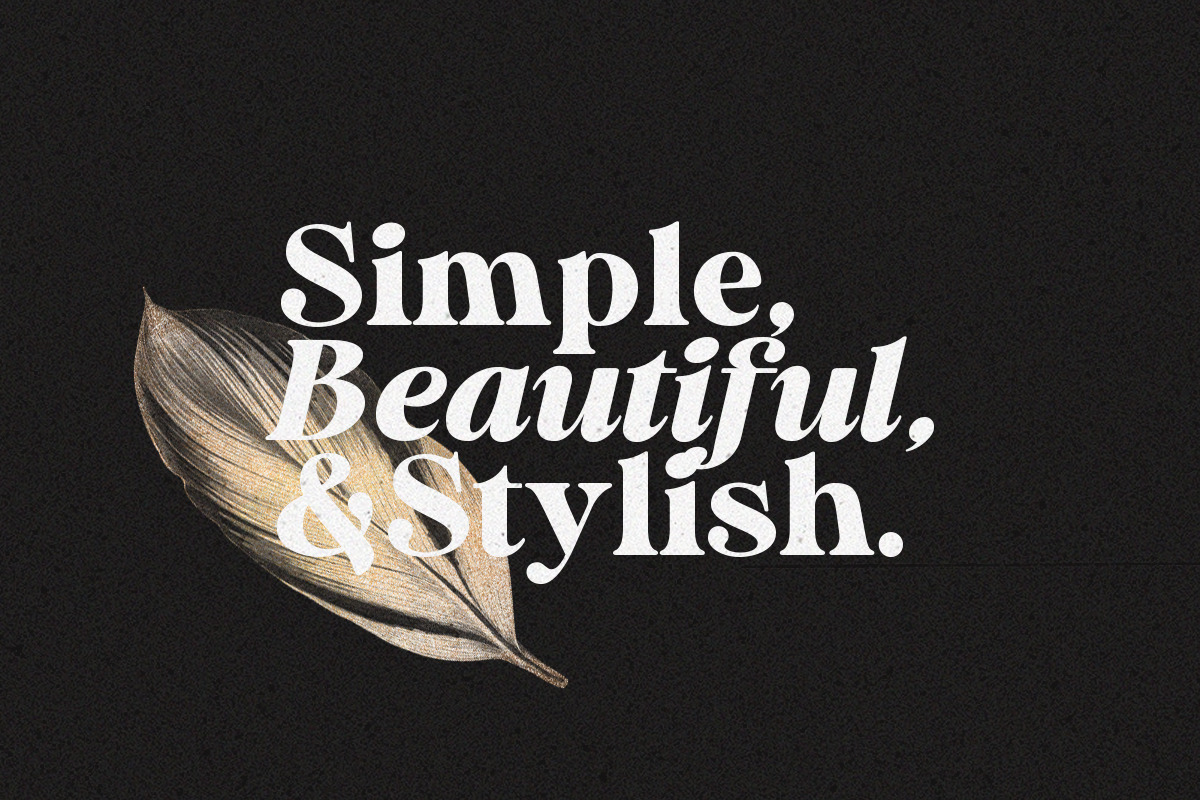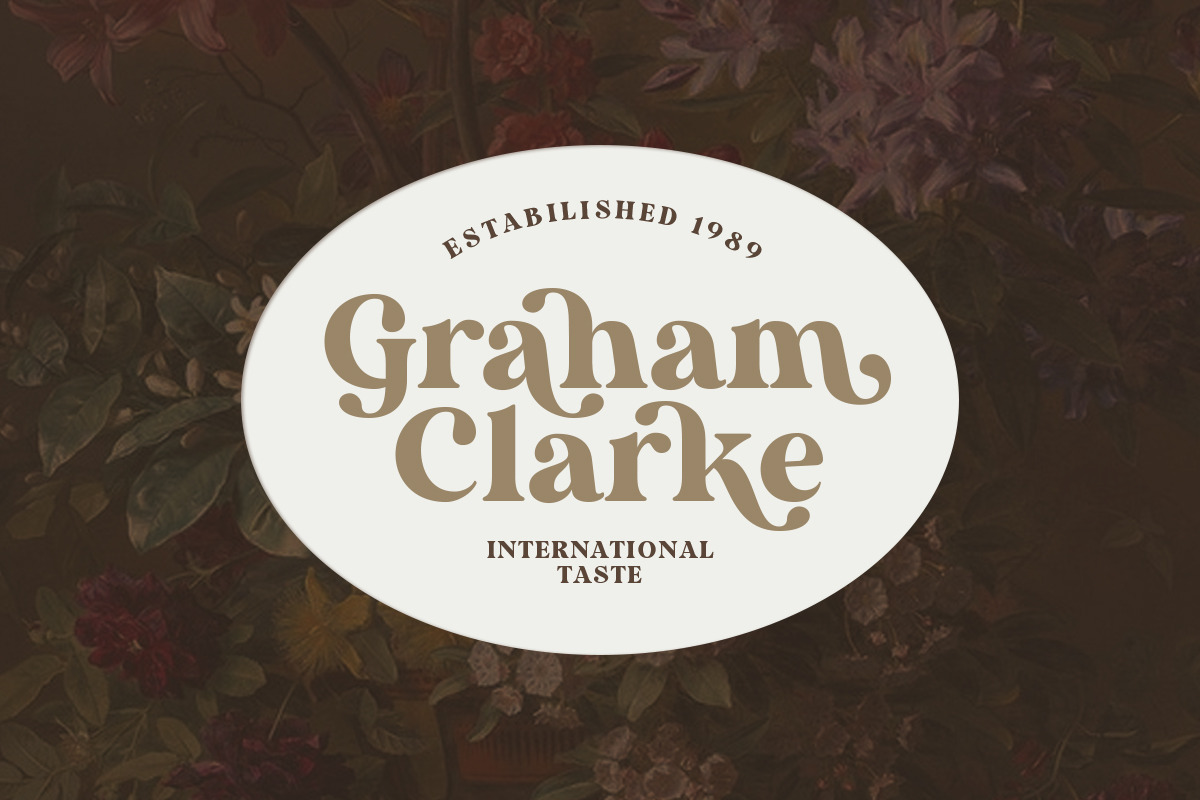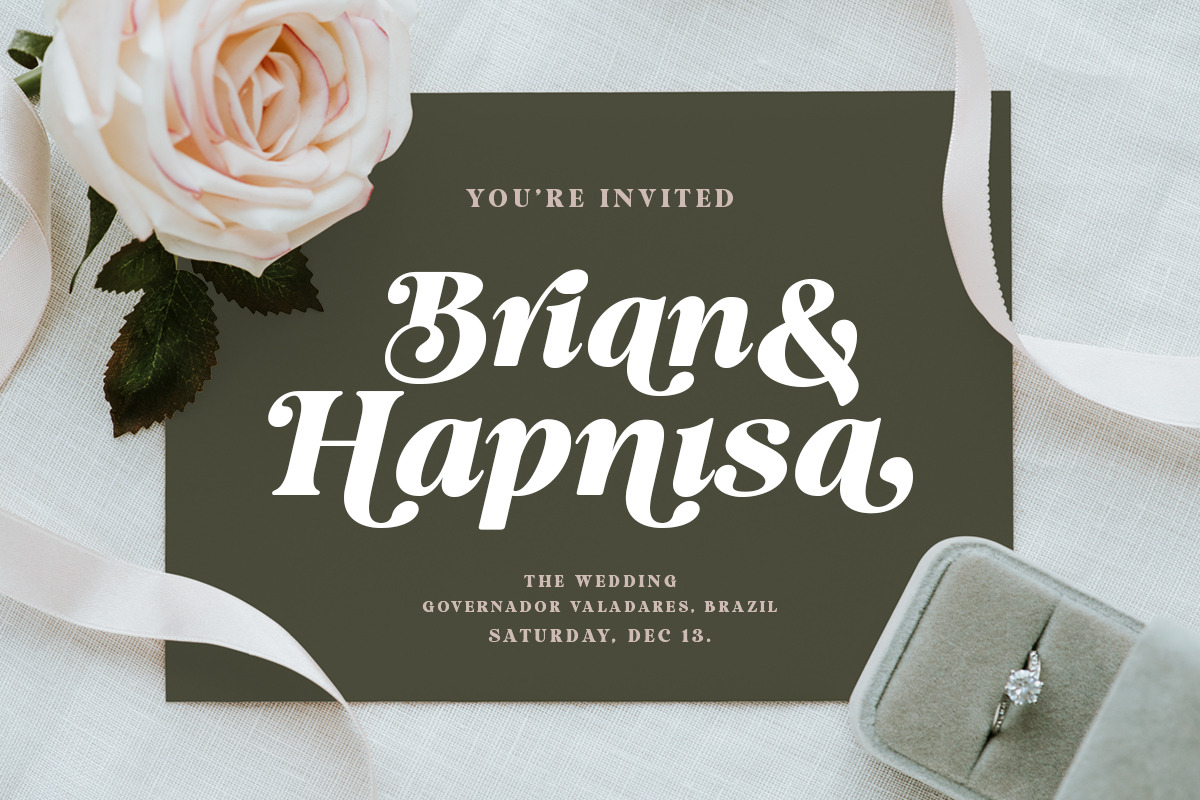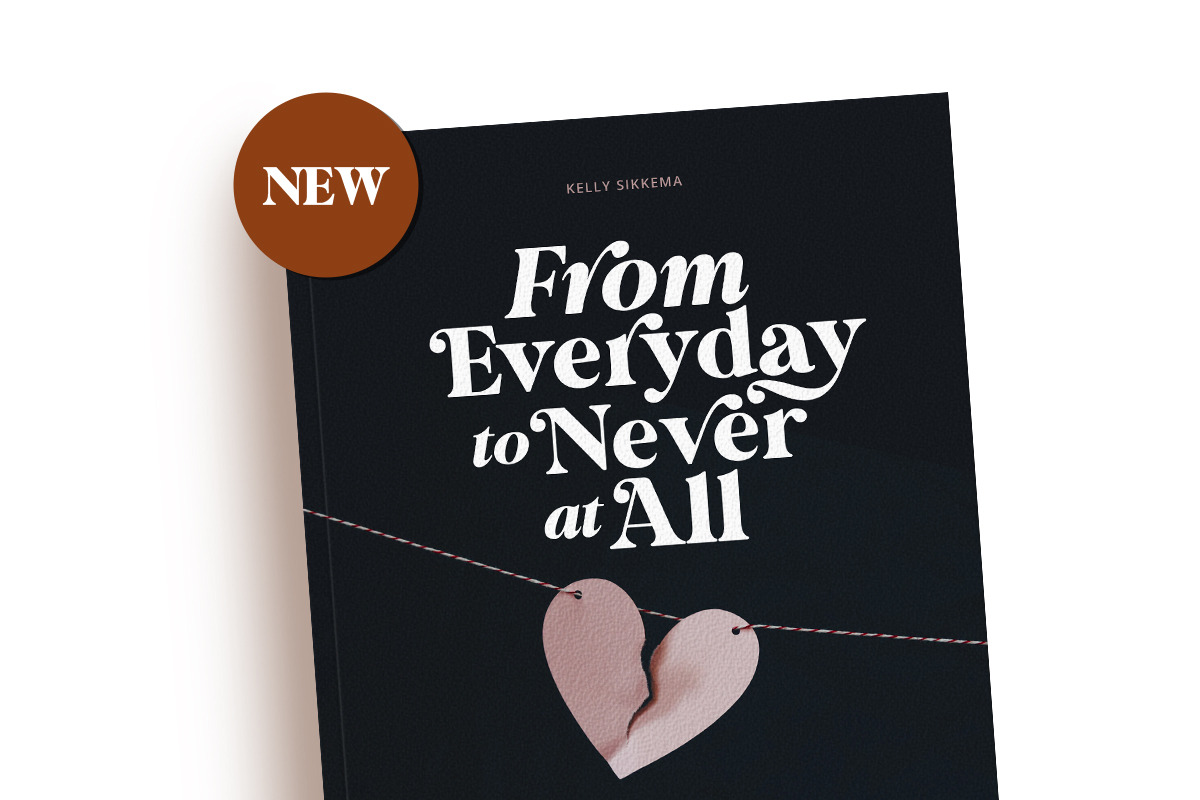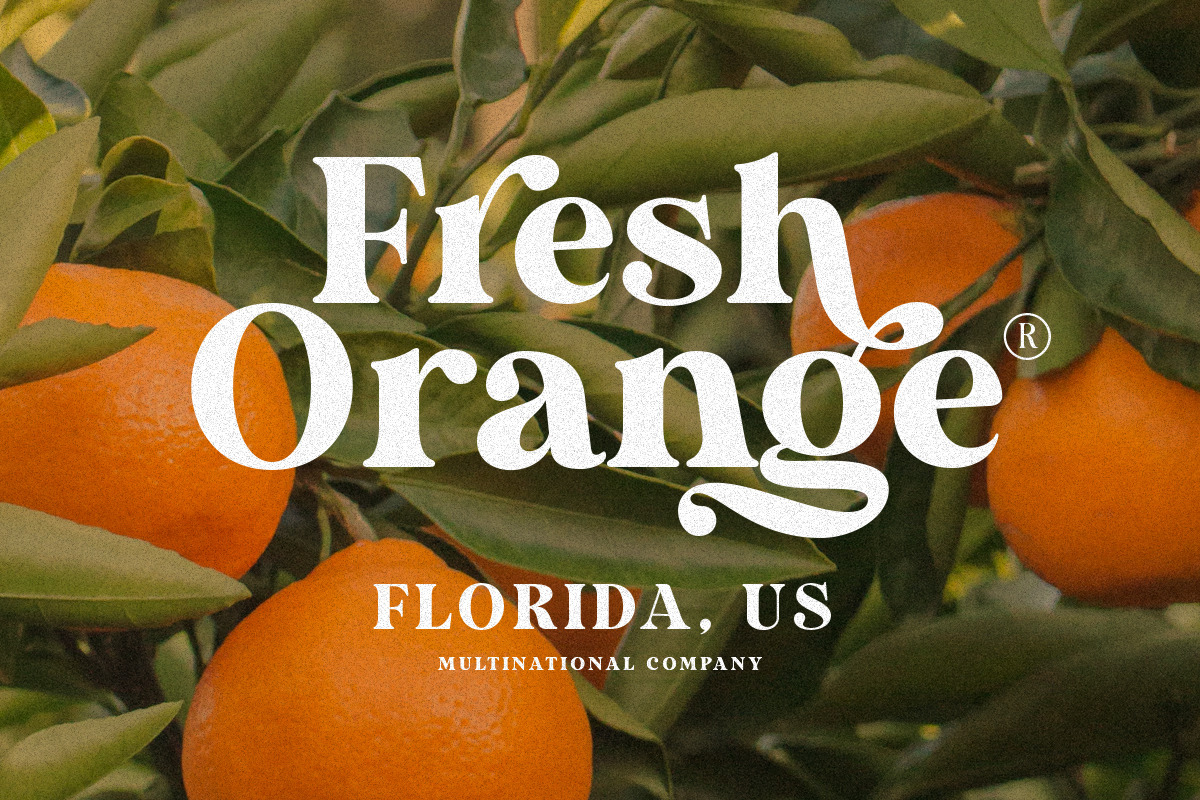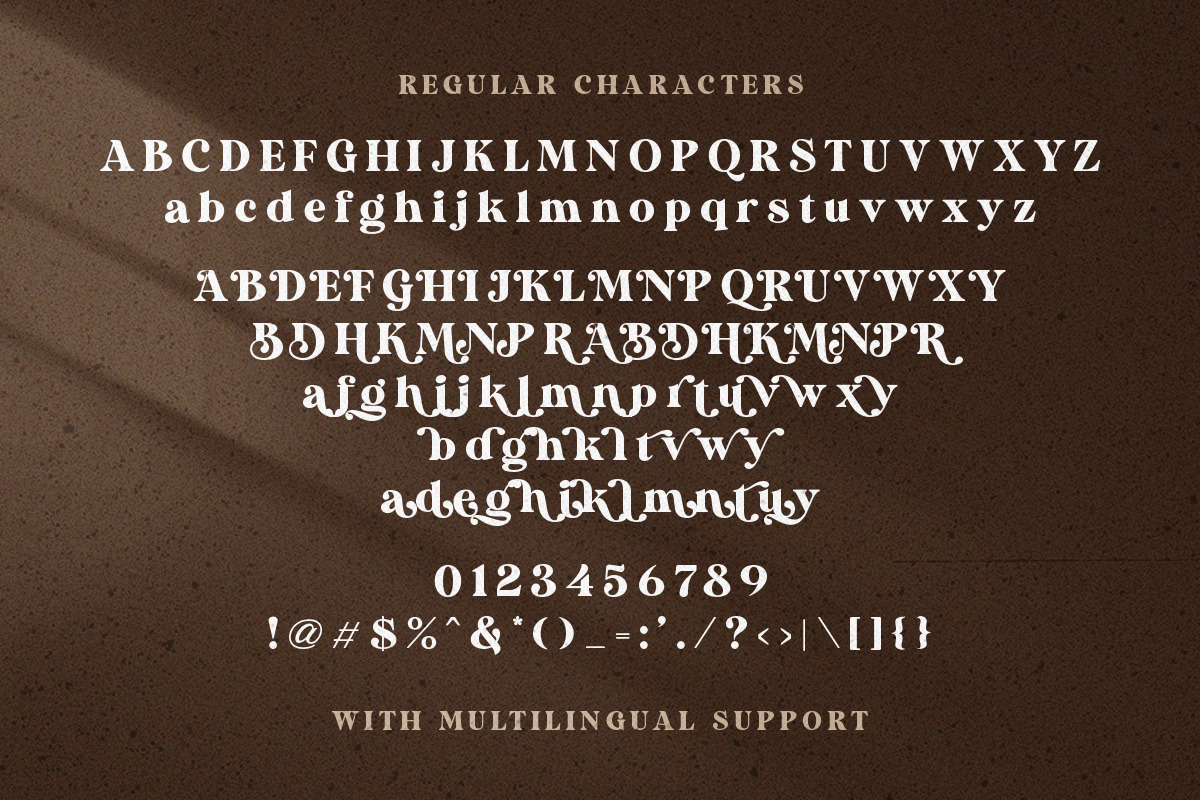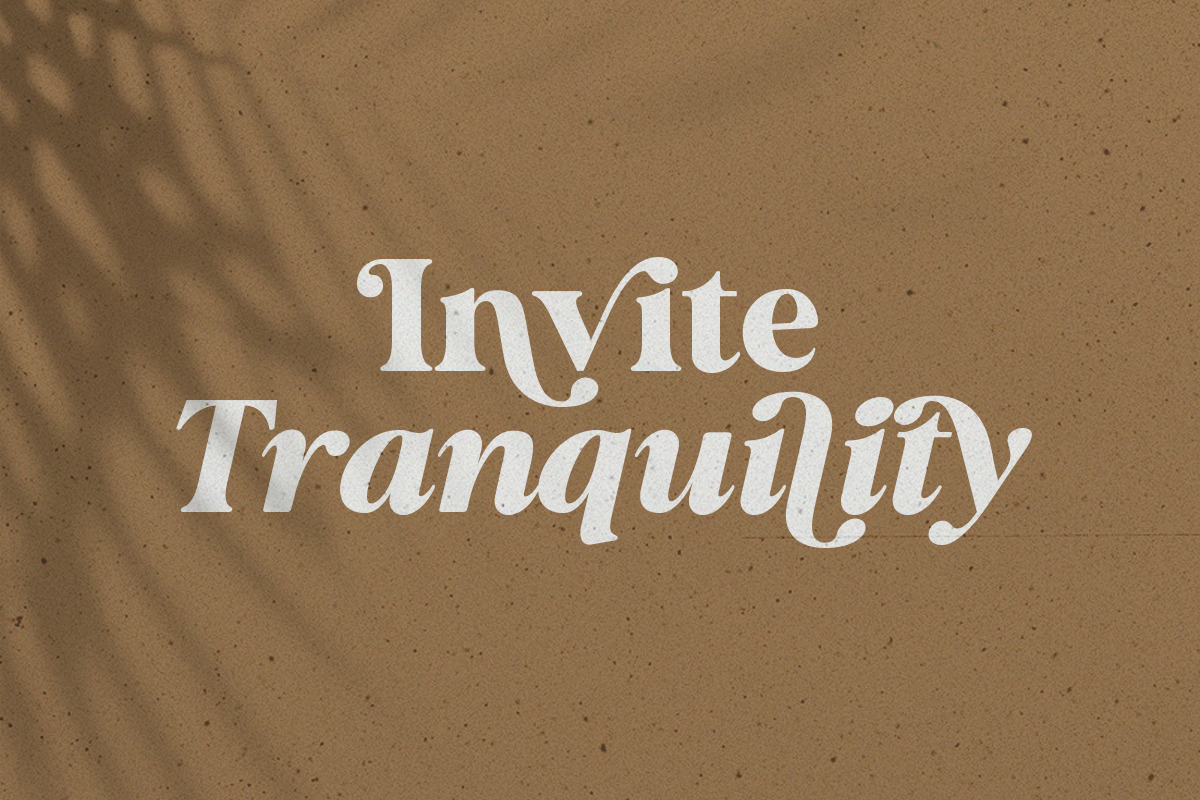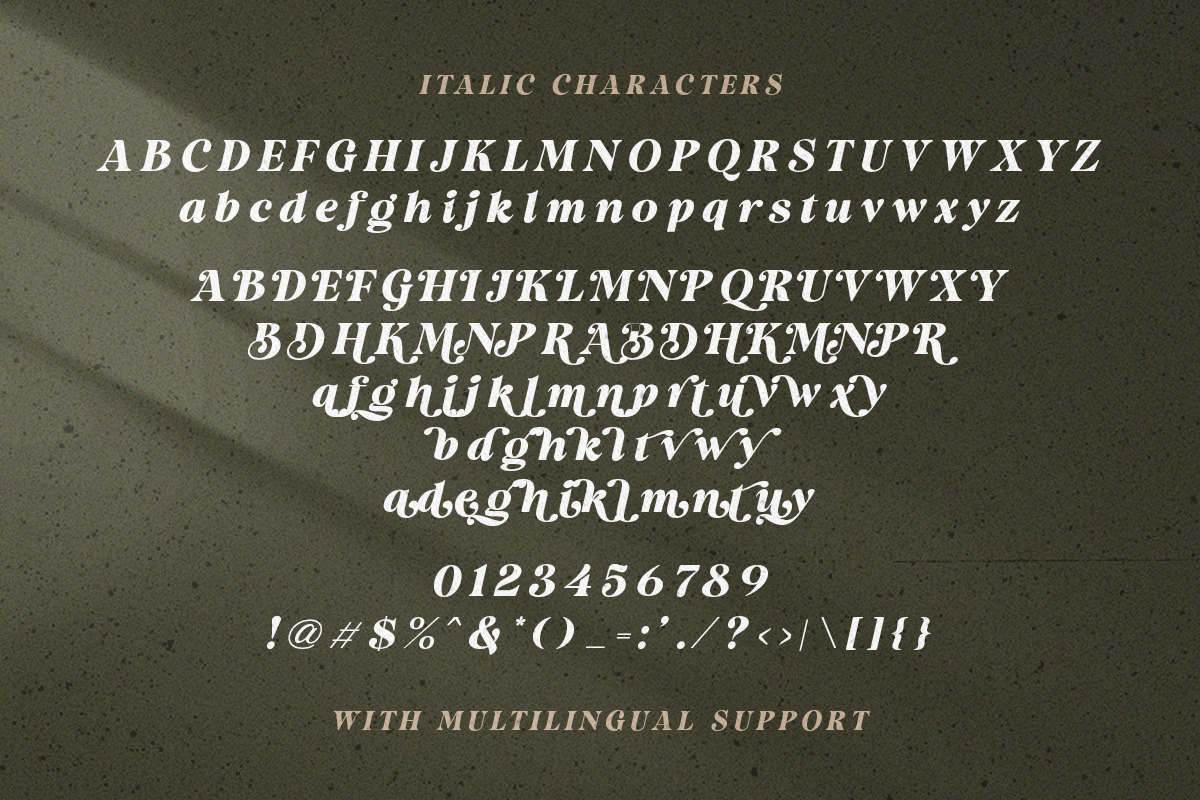
UPDATE! Duke Charming Bold Serif
We’re excited to announce a new update— Duke Charming now comes with an elegant italic version to enhance your design possibilities!
Introducing Duke Charming, a modern bold serif font that stands out with strong character and timeless style. It's one of our finest creations, crafted with great attention to detail to ensure top quality.
With its stylistic alternates and unique ligatures, Duke Charming brings a distinctive look that helps your design stand out from the crowd.
- alternates & ligatures